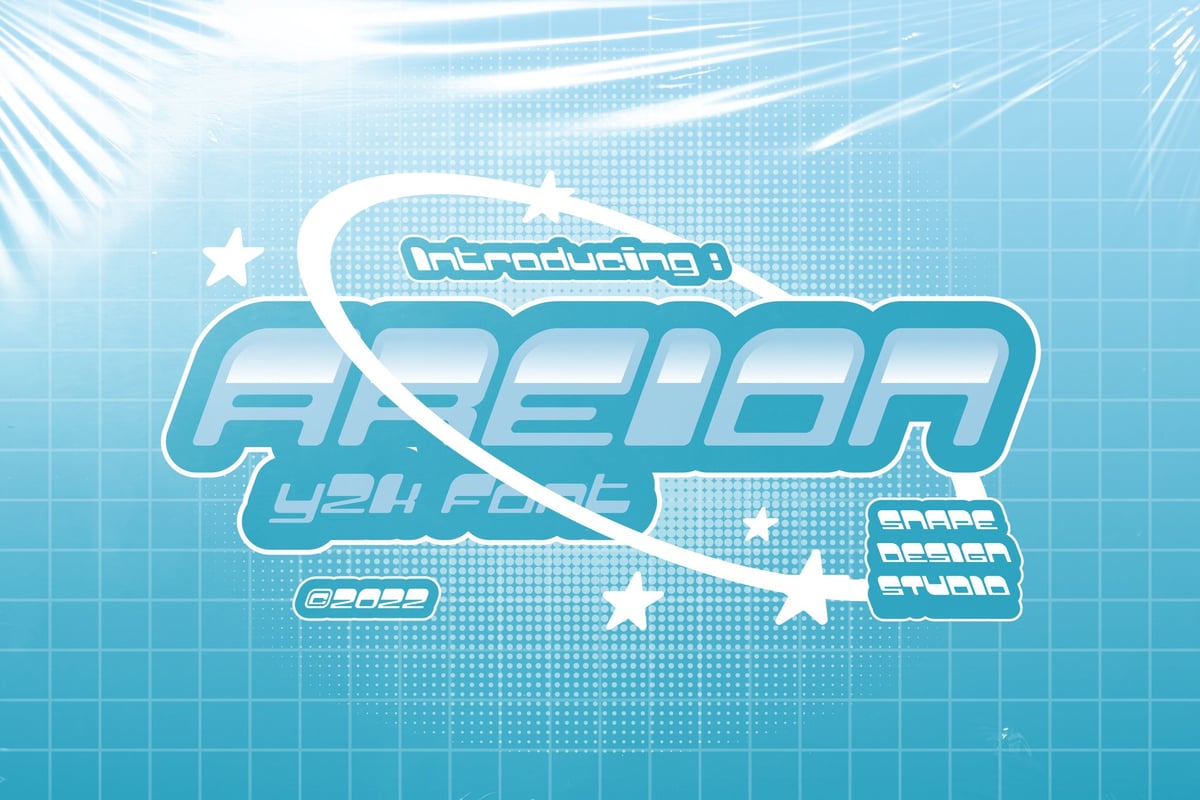
Areion - Y2K Font
Transport your designs to the digital future with this Y2K-inspired futuristic font that screams millennium nostalgia. Areion draws heavy inspiration from the iconic Y2K design era, channeling the energy of early 2000s music and pop culture into a bold, forward-thinking typeface. This font is perfectly crafted for technology themes, digital interfaces, and space galaxy concepts that demand attention. This versatile typeface excels across multiple creative applications: Movie titles and film cred...